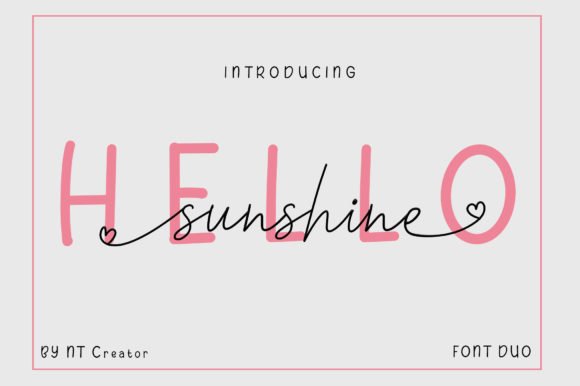
Unlock the Sunshine in Your Designs
Have you ever stared at a blank page, waiting for the perfect font to bring your creative vision to life? It’s a moment we’ve all experienced – the spark of inspiration that sets our imagination ablaze. And today, we’re excited to share a font that’s sure to brighten up your designs: Hello Sunshine Font.
This elegant and dainty script font features sweet and delicate swashes that are perfect for adding a touch of whimsy to your crafty projects. From letterheads and titles to stationery, Hello Sunshine Font is a versatile choice that’s sure to delight. With its PUA encoding, you’ll have easy access to all the glyphs and swashes you need to create stunning designs.
As a designer, you know how much a beautiful font can elevate a project. That’s why Hello Sunshine Font is a valuable addition to any design toolkit. Its unique look and feel make it a standout choice for anyone looking to add a little sunshine to their designs.
Hello Sunshine Font Key Features
- Unique Characteristics: This font features a unique blend of modern and vintage elements, with a warm and inviting tone that is perfect for creating a welcoming atmosphere in branding, advertising, and editorial design.
- Script and Stylistic Sets: Hello Sunshine Font includes a range of script and stylistic sets, allowing designers to add an extra layer of personality and flair to their designs.
Hello Sunshine Font Review
Hello Sunshine Font is a delightful, playful font that shines with its unique charm ✨. Its rounded edges, irregular shapes, and varying line weights create a friendly atmosphere, perfect for headings and titles. The font’s organic feel makes it ideal for branding, packaging, and social media designs.
Here are some of its notable strengths:
- Uniqueness: The Hello Sunshine Font’s whimsical design sets it apart from more traditional fonts.
- Playfulness: Its irregular shapes and line weights add a touch of fun and personality to any design.
- Legibility: Despite its unconventional design, the font remains easy to read, even in smaller sizes.
However, there are some limitations to consider ⚠️:
- Consistency: The font’s irregularities can make it difficult to achieve perfect consistency across different sizes and styles.
- Readability: While the font is generally legible, it may struggle in very small sizes or in situations where clear, concise typography is essential.
Overall, the Hello Sunshine Font is a great choice for designers who want to add a touch of whimsy and personality to their work. Its unique design and playful feel make it perfect for creative projects, but it may not be the best choice for more formal or technical designs.
Some tips for getting the most out of Hello Sunshine Font include:
- Using it for titles and headings to add a touch of whimsy.
- Combining it with other fonts for a unique and playful look.
- Using it for digital designs, such as social media graphics and website headers.